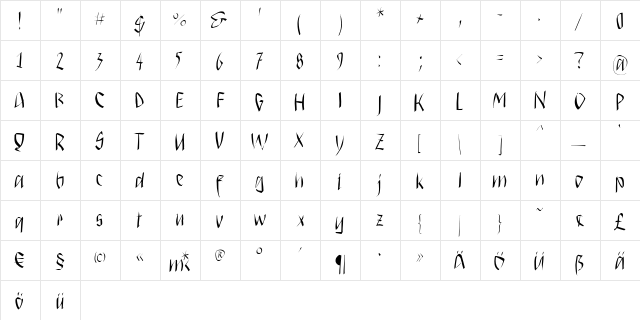
SaiGon Regular
Design Context for SaiGon Typeface
SaiGon is a composed and adaptable typeface that performs quietly and consistently across a wide range of design contexts.